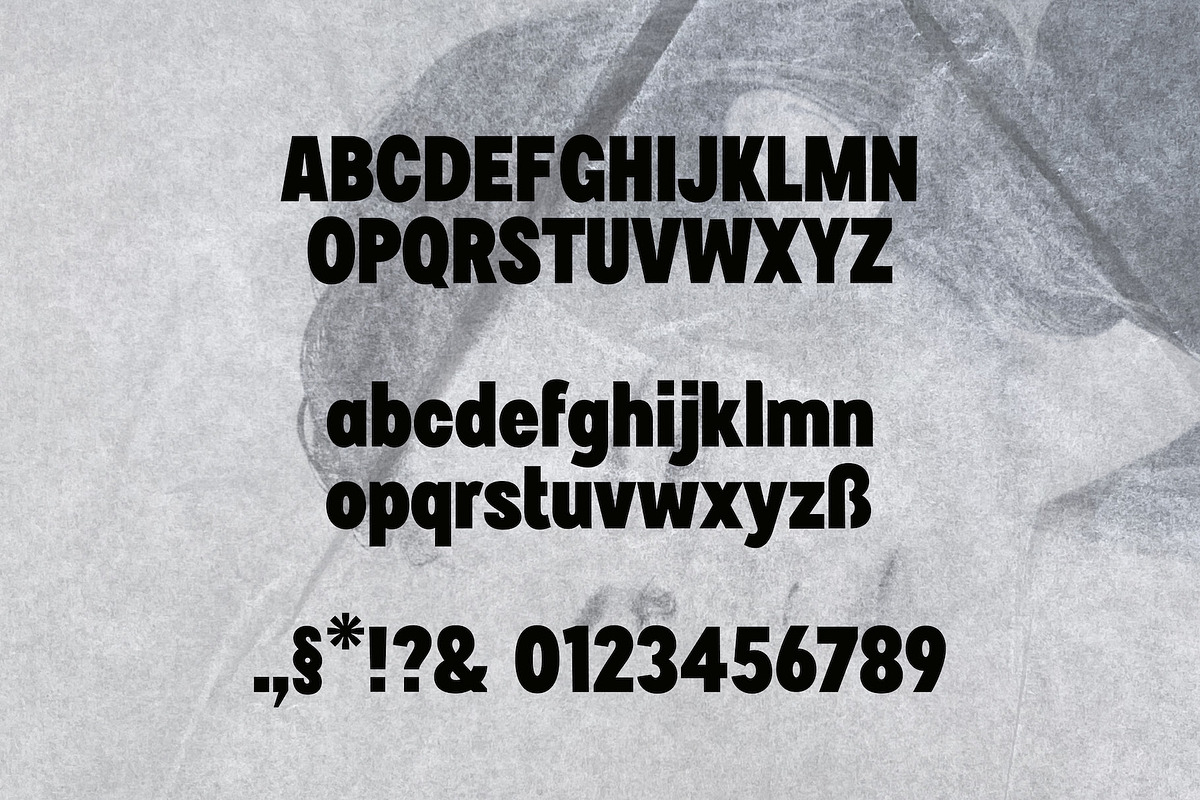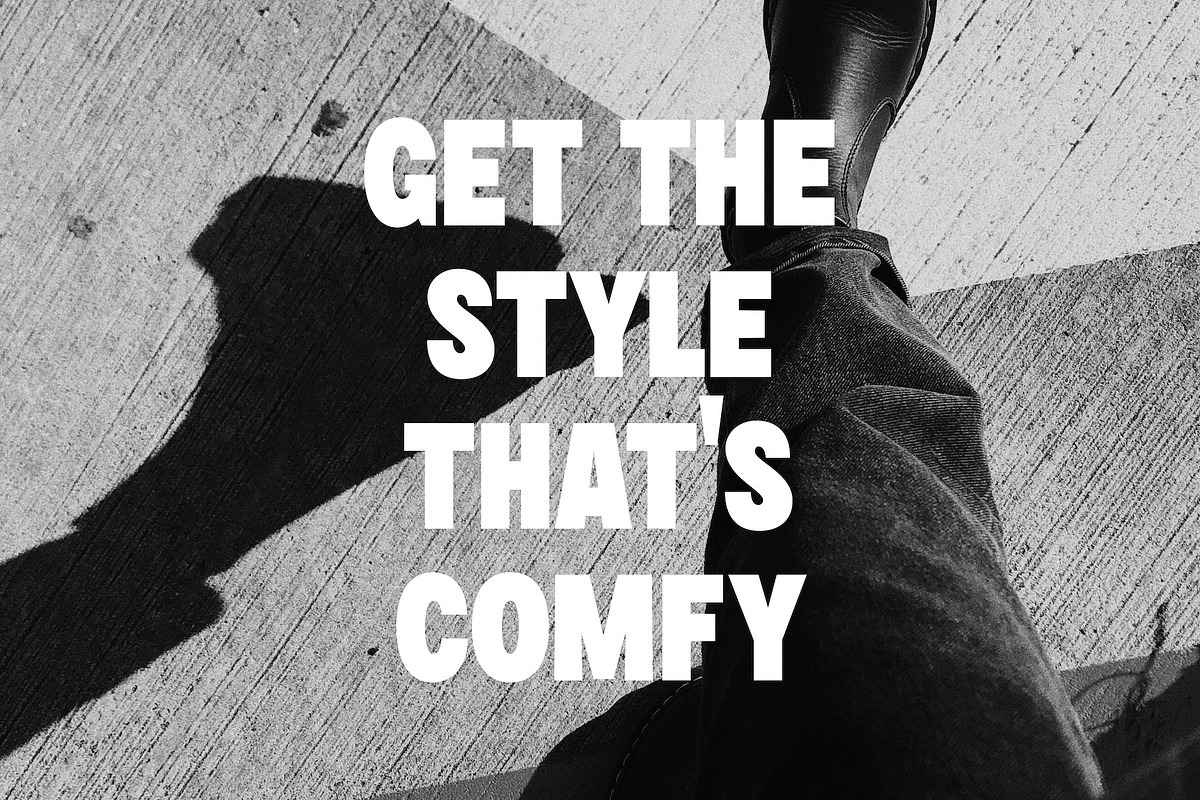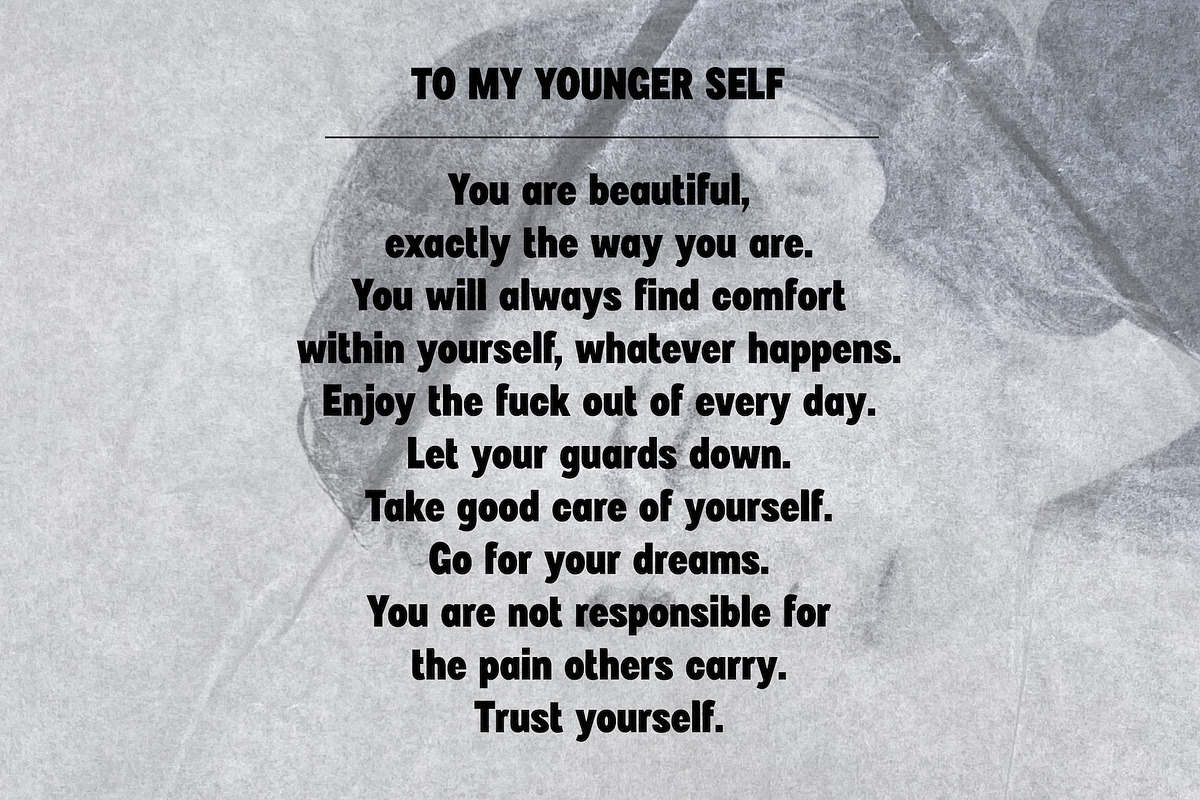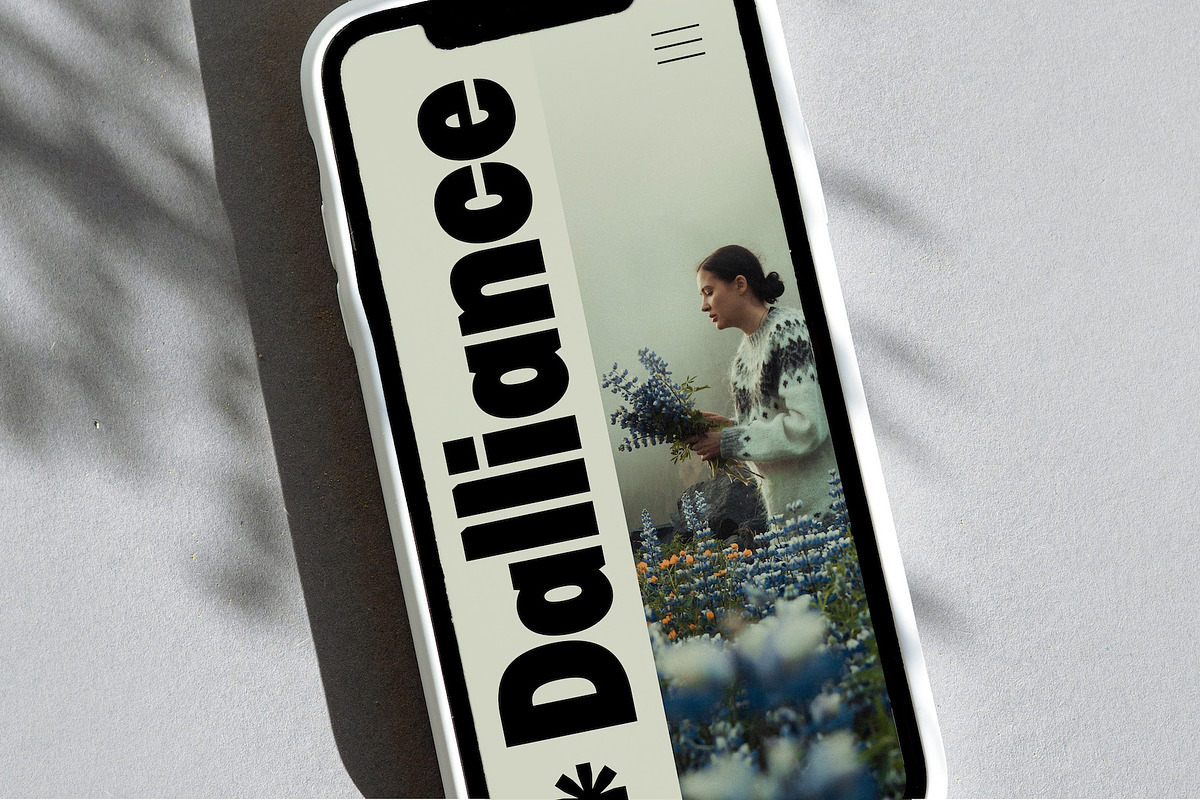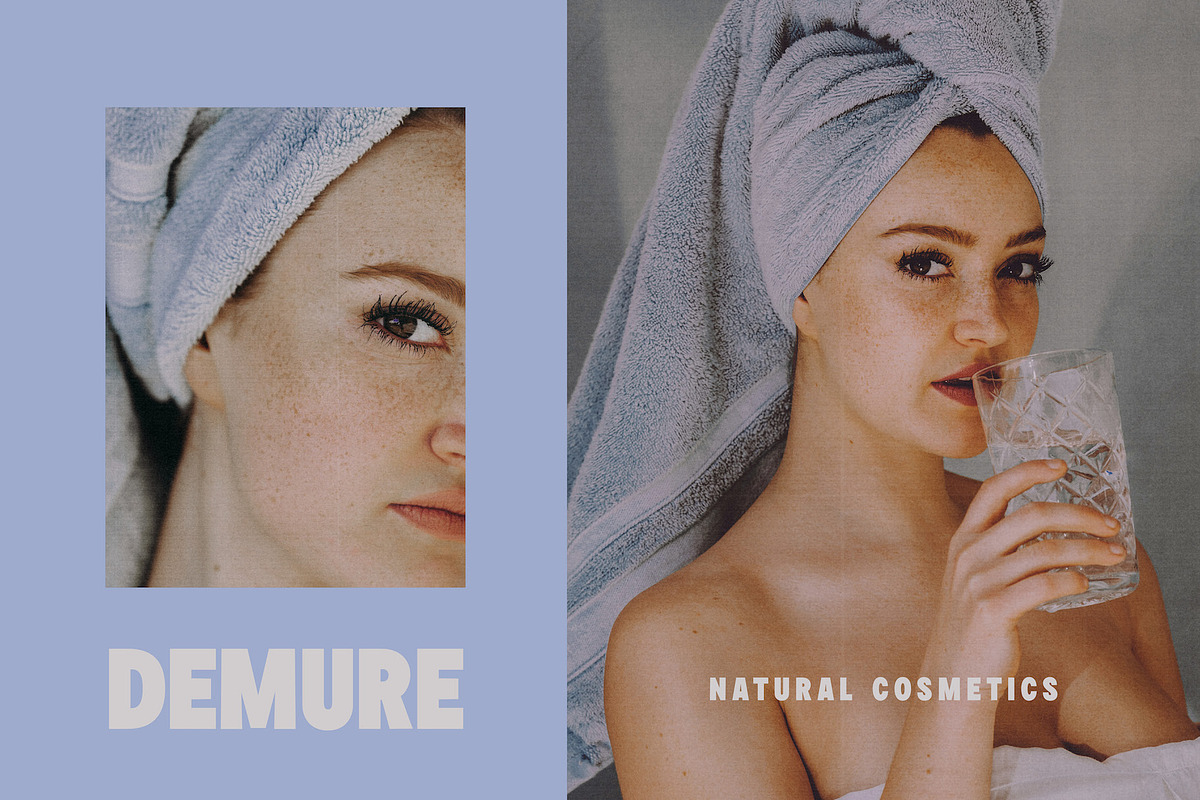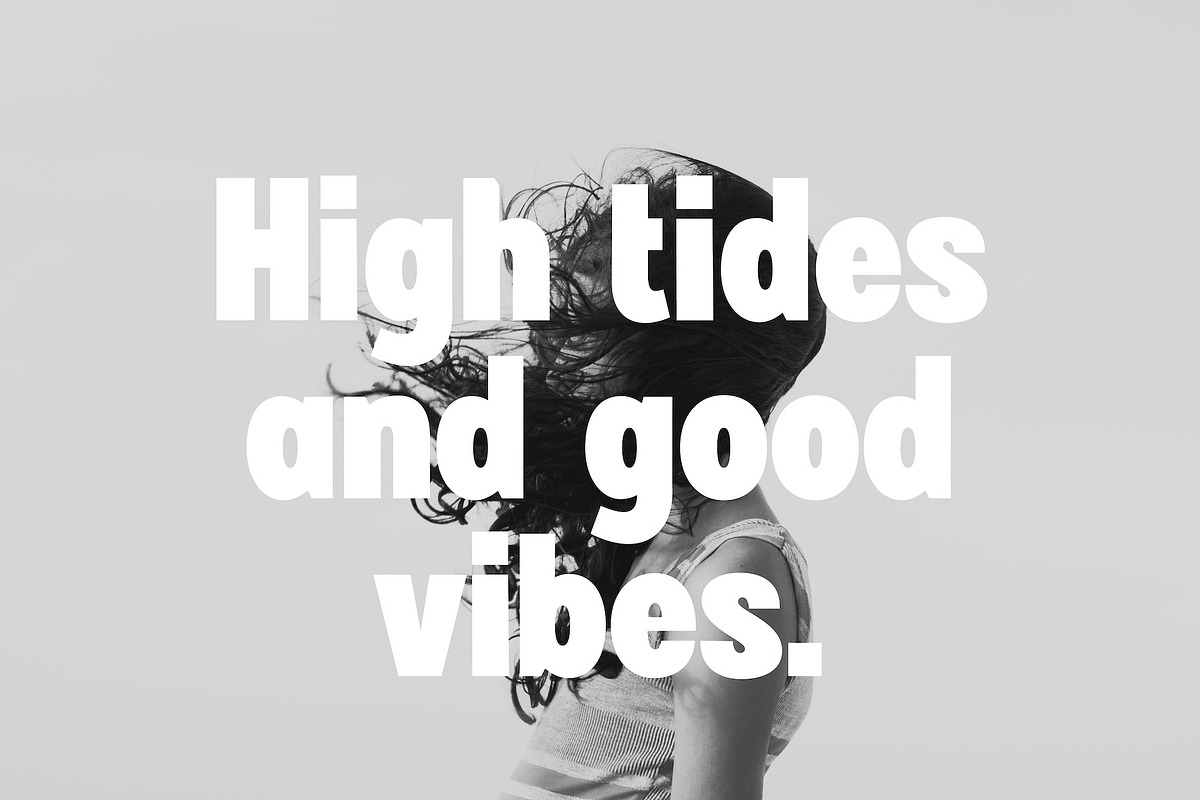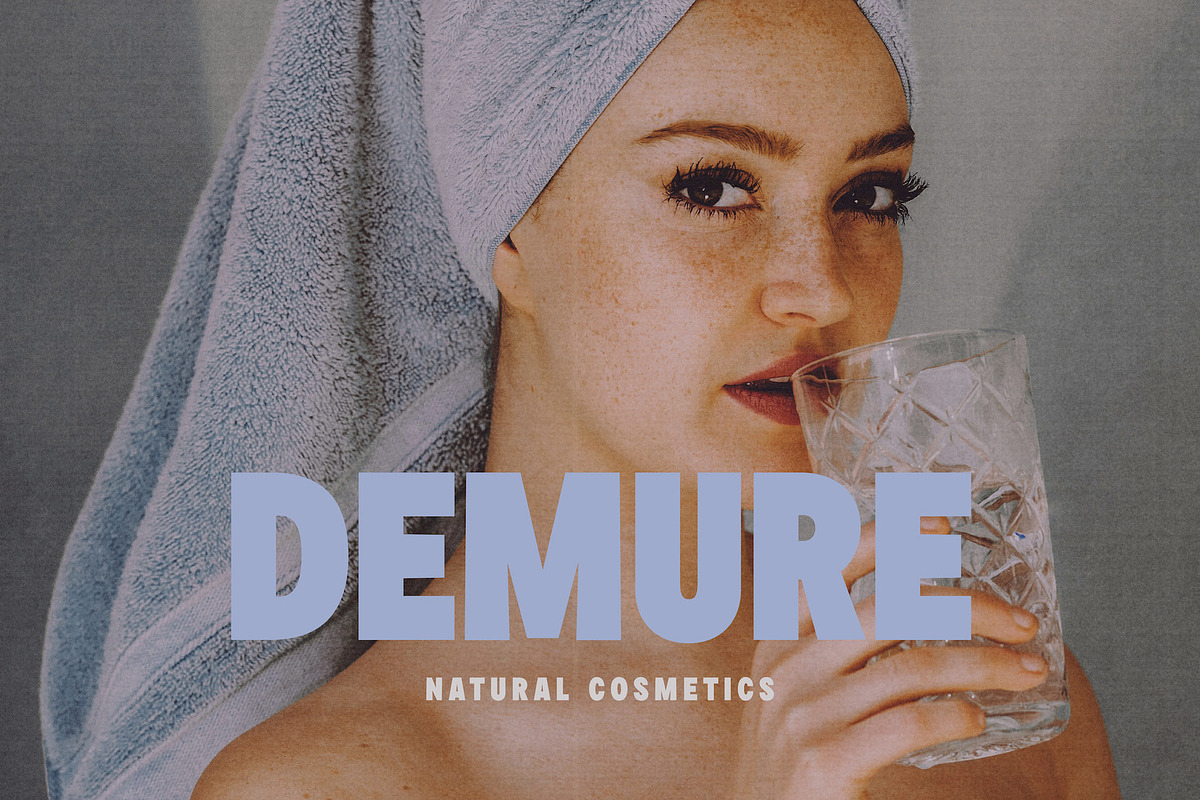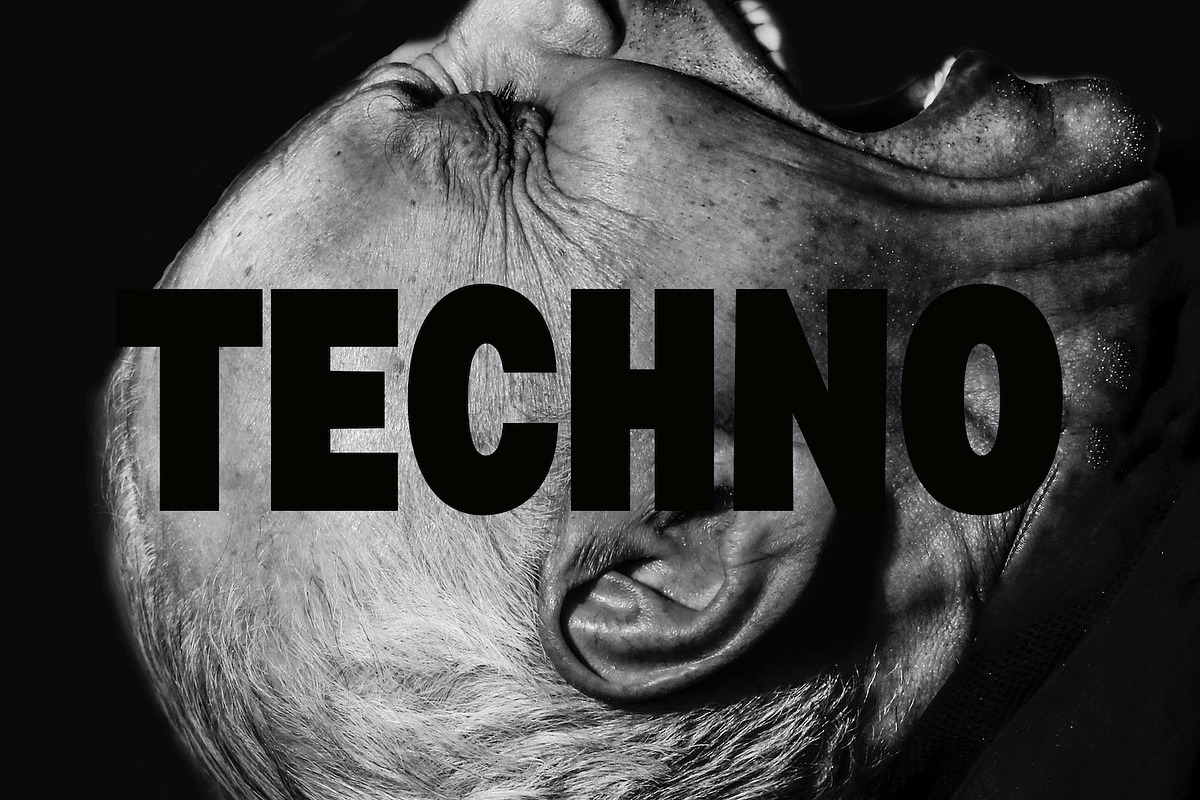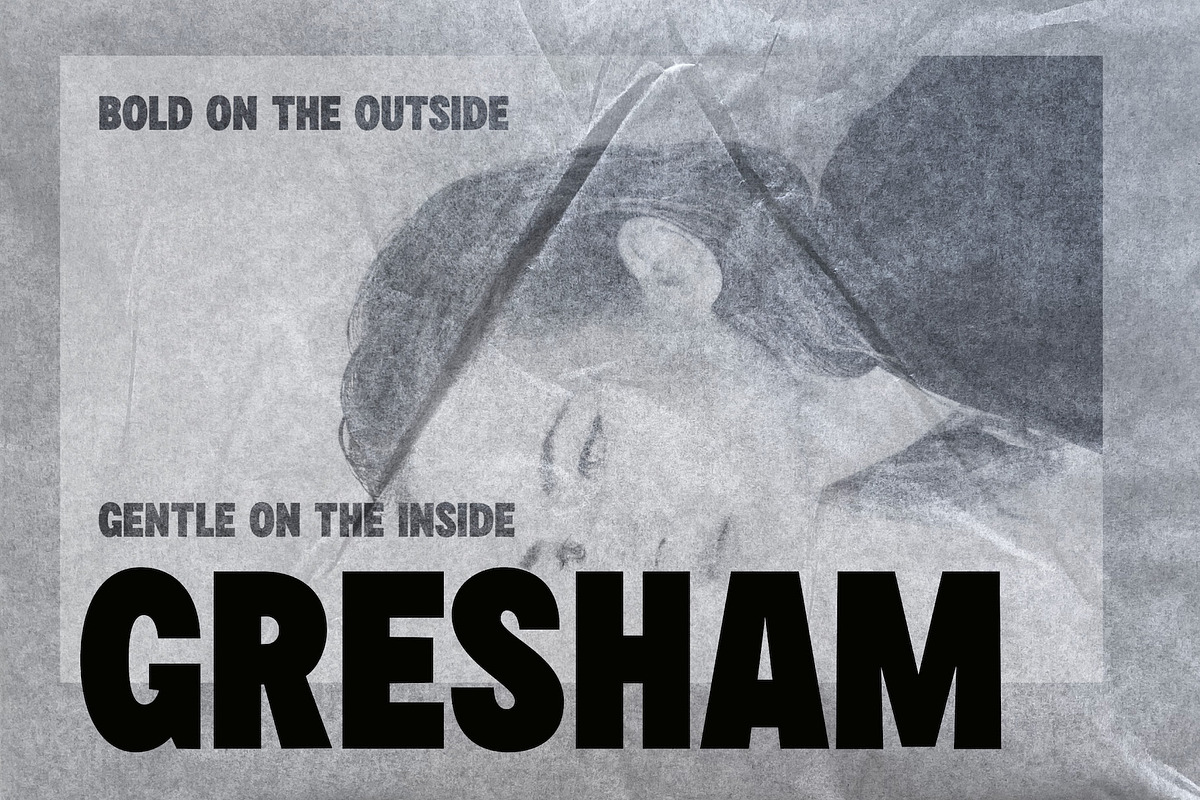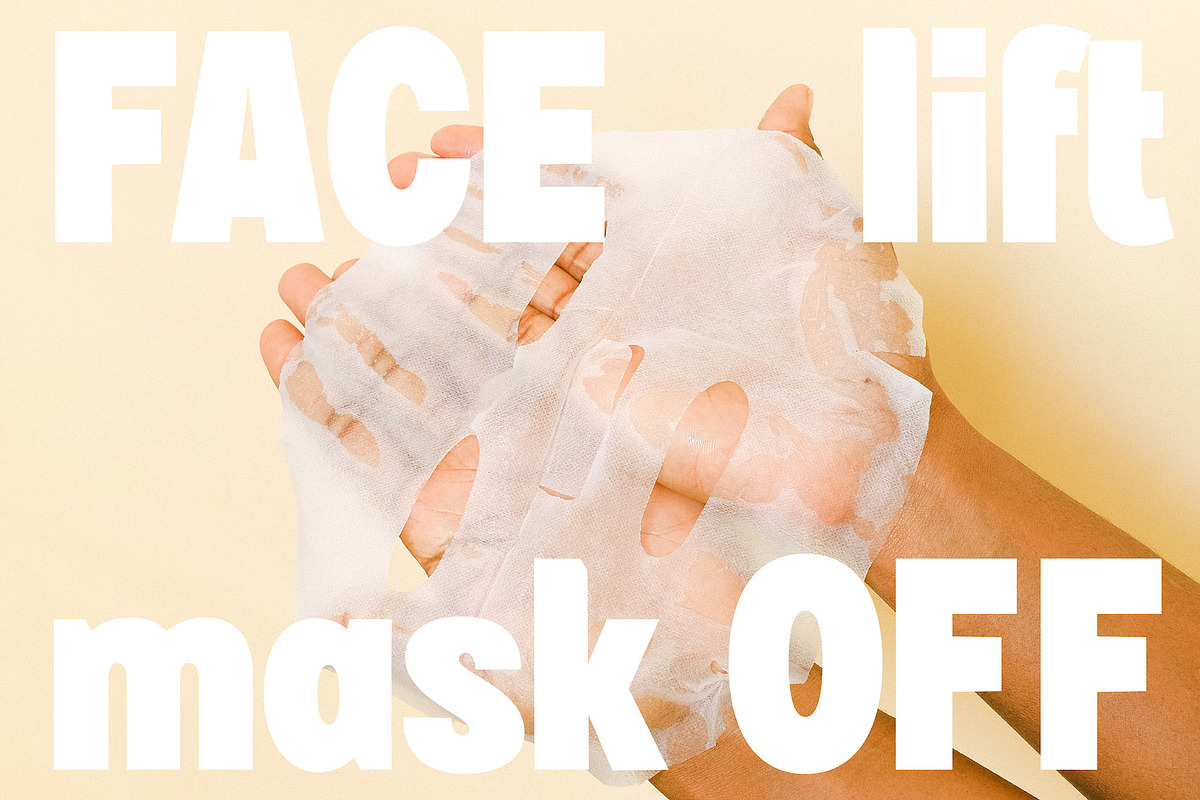
Gresham – Bold & Gentle Sans
Gresham is a gentle, bold sans serif typeface with a condensed vibe. It is perfectly suited for designing recognizable & modern brands, contemporary packaging, bold statements, websites and so much more!
- Full Upper- and Lowercase Alphabet
- Numbers + Basic Punctuation + Basic Symbols
- Non-English support